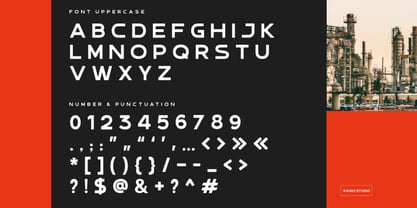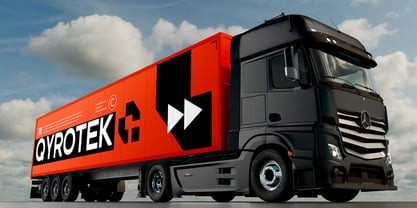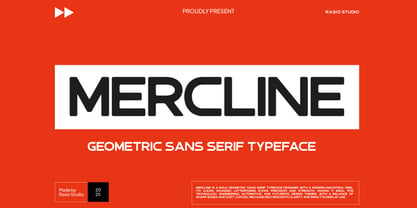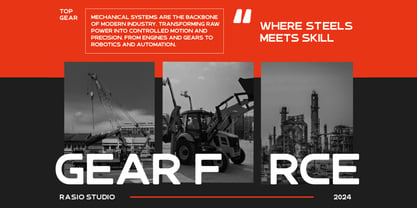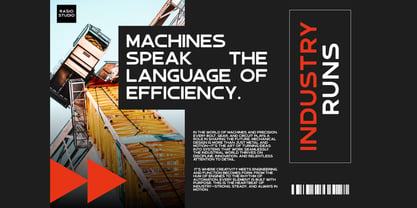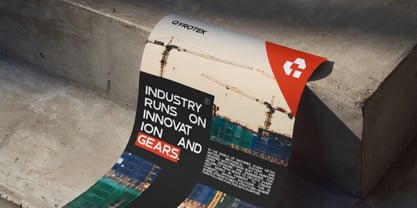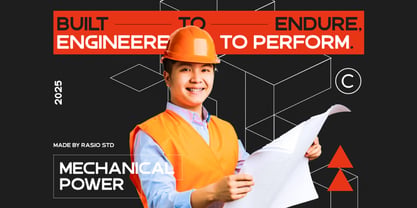
Mercline
by Rasio Studio
The Mercline Font Family was designed by Fajar Indra and published by Rasio Studio. Mercline contains 1 styles. More about this family
Mercline is a bold geometric sans serif typeface crafted with a modern industrial aesthetic. Its clean, rounded letterforms deliver precision and strength, making it perfect for engineering visuals, construction branding, automotive themes, and futuristic design concepts. The balanced combination of sharp edges and smooth curves creates a strong visual identity that stands out in headlines, signage, packaging, and digital interfaces. Featuring uppercase characters, numerals, and punctuation, Mercline ensures versatility across a wide range of professional applications. Whether for bold editorial layouts or industrial marketing assets, this typeface provides clarity, impact, and a confident modern presence.
Designers: Fajar Indra
Foundry: Rasio Studio